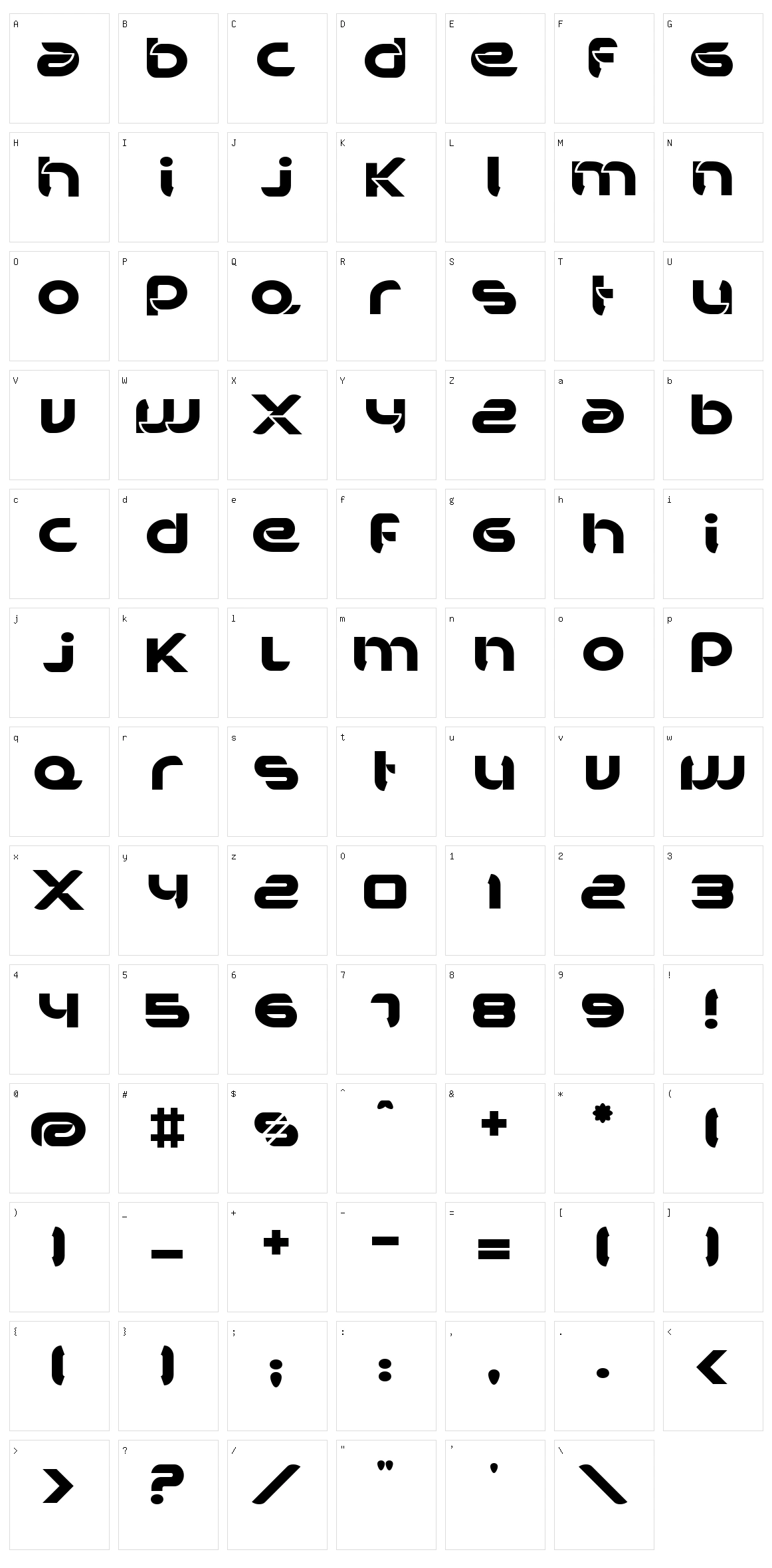
The free font BD Bankwell is carefully designed by Büro Destruct, showcasing a thoughtful balance of creativity and usability and falls under the Groovy font style. When you download the ZIP file, it contains only 34.83 KB of font files, making it lightweight and quick to download. Please review the license details below to understand permitted usage and distribution rights. If license information is not available, we recommend using this font for personal projects only or contacting the author directly for commercial usage permissions.